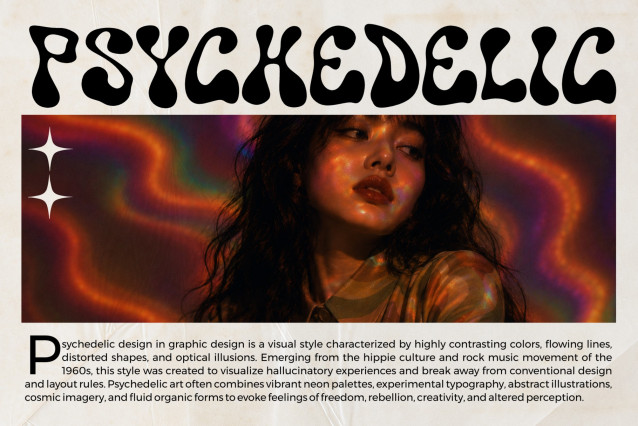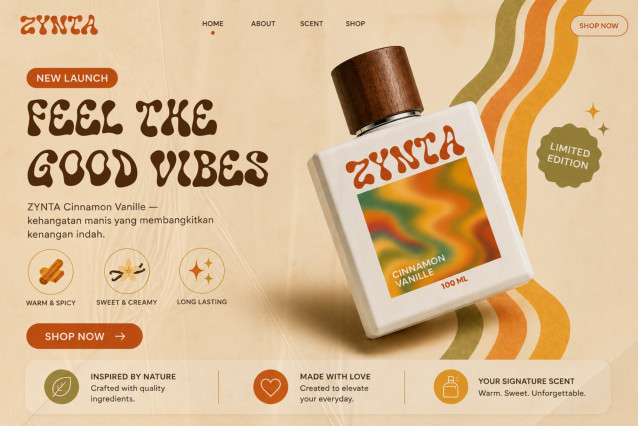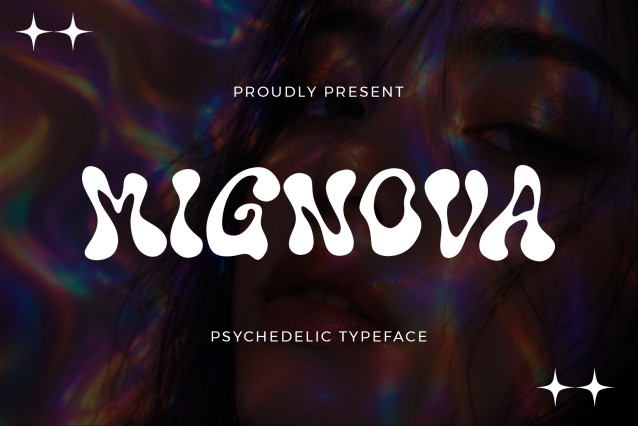
Mignova Font
Mignova Font – A Bold Retro RevivalProudly presented by Cikareotype Studio, Mignova is a standout retro display font that brings the vibrant energy of the 60s and 70s straight into the modern design world. Featuring wavy, melting-like letterforms and a distinct psychedelic aesthetic, this font is meticulously crafted to turn any headline into an instant work of art.Whether you are designing edgy apparel, eye-catching branding, or nostalgic social media graphics, Mignova delivers unmatched personality and a powerful visual impact. It is freeware for personal projects, allowing you to easily test its groovy vibe before upgrading.